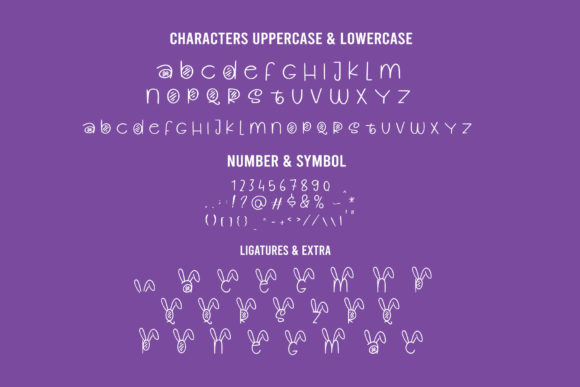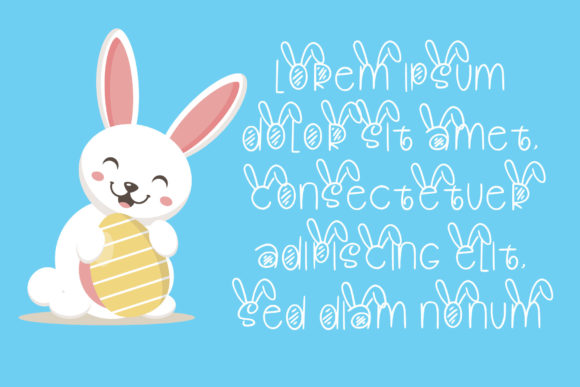
Introduction to Oh Bunny Font
Oh Bunny is an incredibly cute and dainty display font.
It embodies playfulness and authenticity and is the perfect choice for any children activity or school project .
Key Features of Oh Bunny Font
Why Choose Oh Bunny Font?